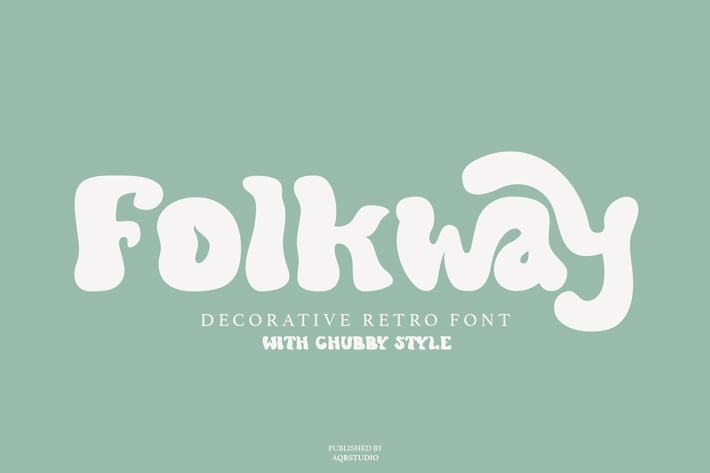
Folkway - Decorative Retro Font
Folkway - Decorative Retro Font contains a lowercase, uppercase, symbol, and also supports multi-language. There’s a lot of ligature in this font. Folkway - Decorative Retro Font also comes with ligatures, stylistic alternates and many more.
this font suitable for fashion, branding, catalog and other design that you want.